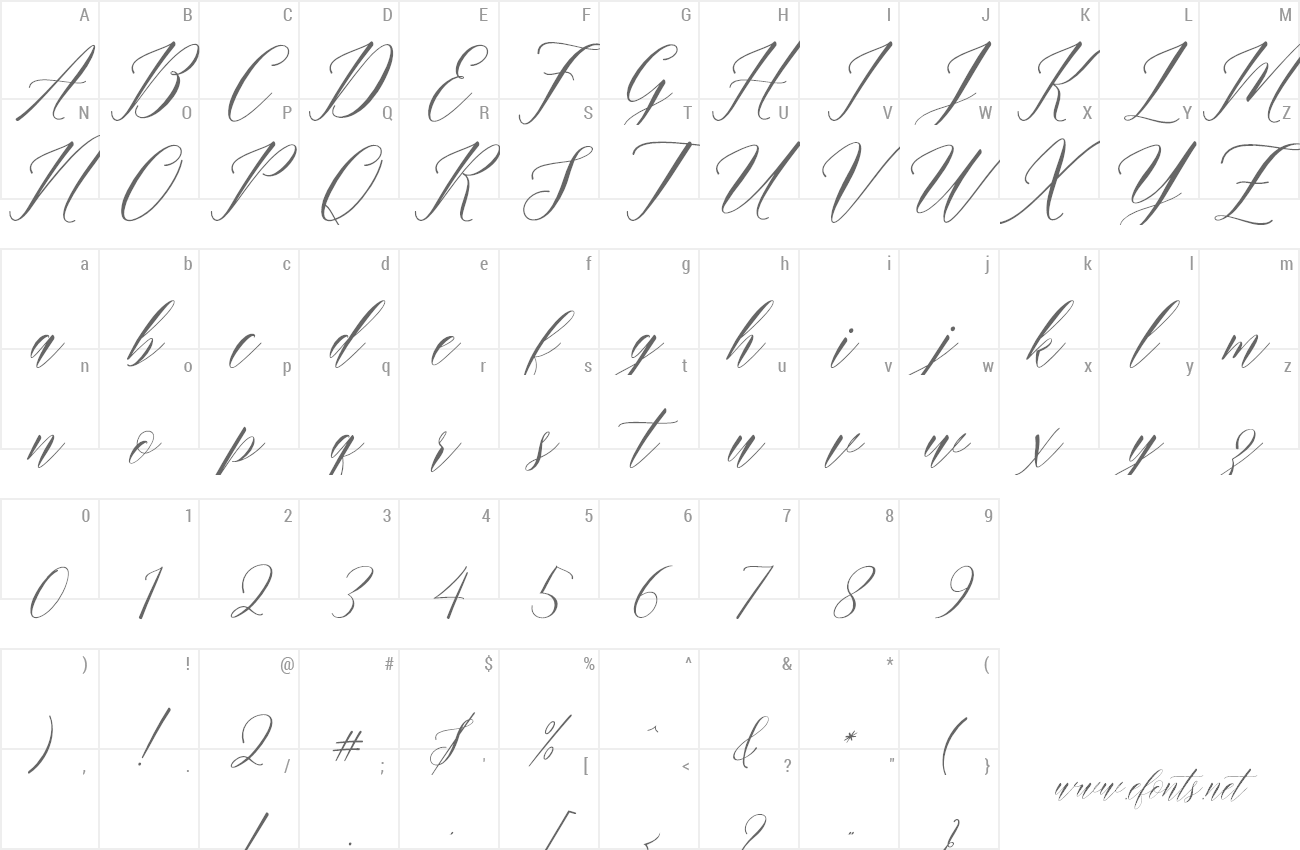
| Font name: | Humairah Script |
| Author: | FadeLine Std. |
Hi Designer, Introducing Humairah Script, a new Modern Script Calligraphy Typeface with its own unique flow and elegant personality :) Humairah Script is a stylish calligraphy font that features a varying baseline, smooth line, modern and elegant touch. Can be used for various purposes, such as headings, signature, logos, wedding invitation, t-shirt, letterhead, signage, lable, news, posters, badges etc. This font is free for just Personal use Link to download full version : https://elements.envato.com/humairah-script-KY445U Visit my store for more great fonts: https://creativemarket.com/fadeline Thank you! |